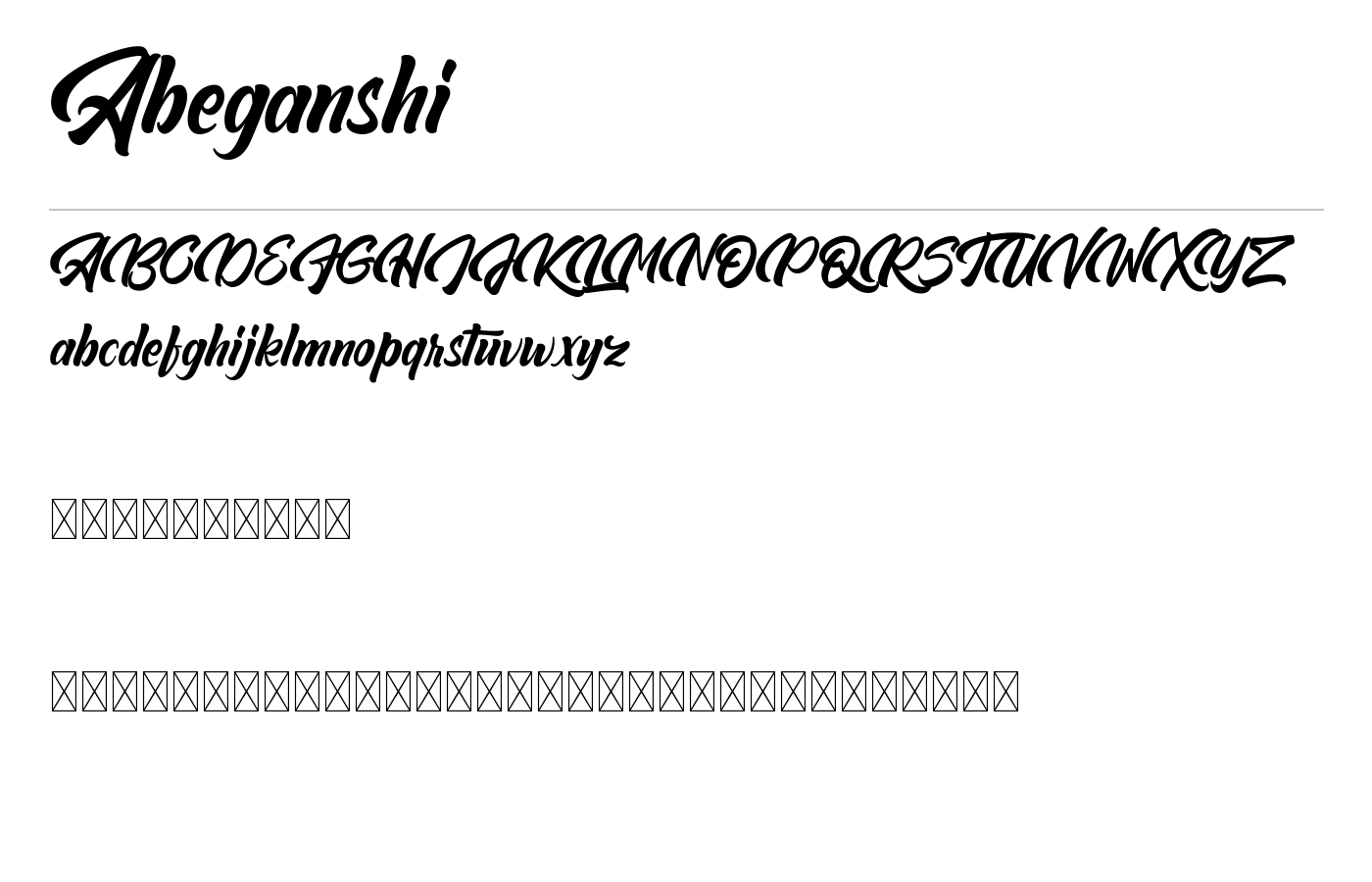
Abeganshi is a bold, script font with elegant, flowing strokes that give it a stylish and dynamic personality. Its smooth, slightly condensed letterforms with a handwritten feel make it perfect for creative branding, fashion, and headlines where a sophisticated yet approachable touch is desired. This font works well in designs that want to convey energy and elegance with a modern flair.
Abeganshi Font
About Abeganshi Font
| Font family | Abeganshi Font |
| Designer | Kotak Kuning Studio |